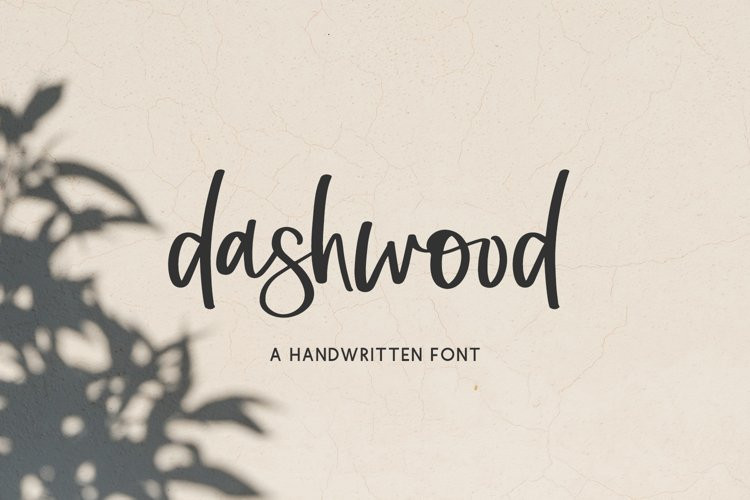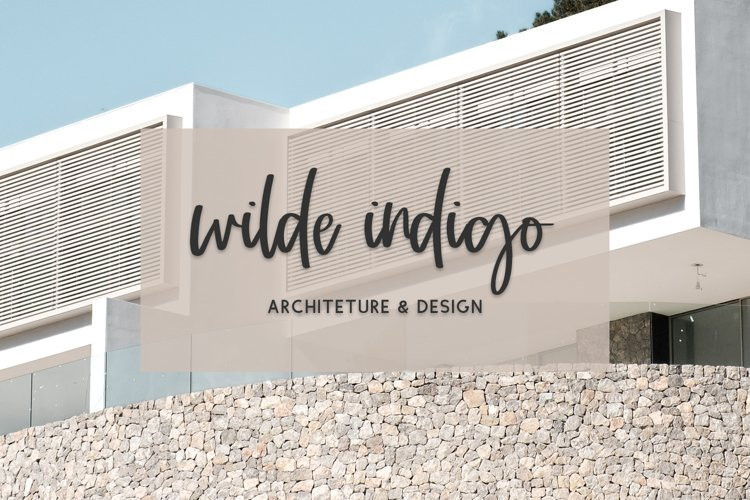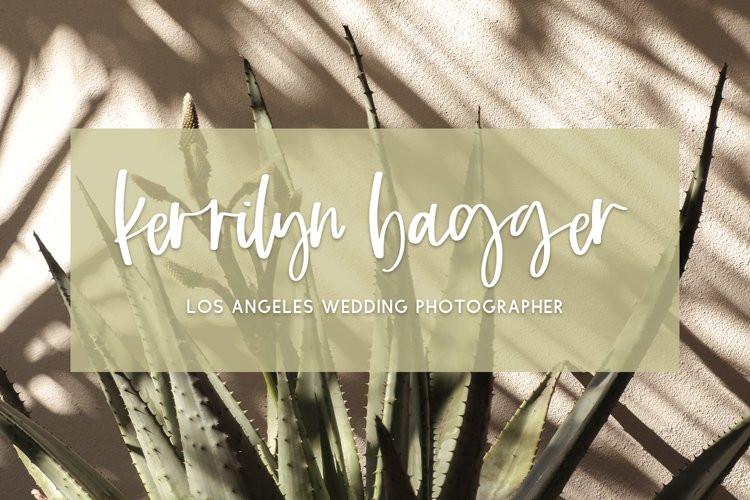
Dashwood Font
Dashwood FontIntroducing Dashwood Script, a modern calligraphy script. This script includes some ligatures to enhance the handwritten appeal, and also sports thicker strokes for legibility.